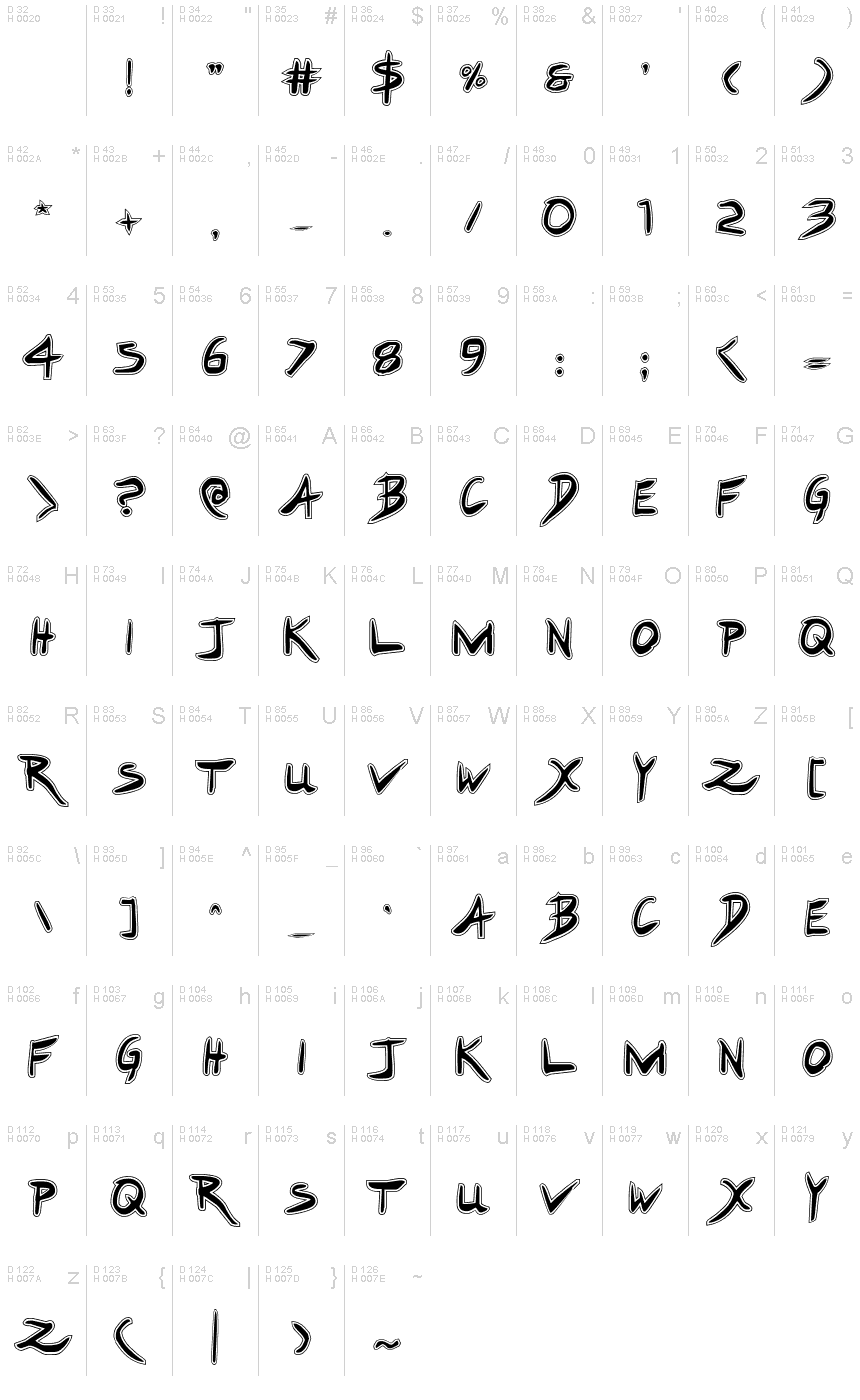
Hakturus Academy Regular
Hakturus Academy, a captivating brush font from the renowned Iconian Fonts, offers a perfect blend of elegance and playfulness. With its semi-expanded width, this font effortlessly adds flair to any project. Ideal for crafting eye-catching book covers that demand attention or designing engaging educational materials, Hakturus Academy is a versatile choice. Its artistic strokes and unique texture make it equally suitable for creating memorable logos or stylish packaging designs. Unlock boundless creativity and make an impact with Hakturus Academy — the go-to semi-expanded brush font for projects that deserve to stand out.